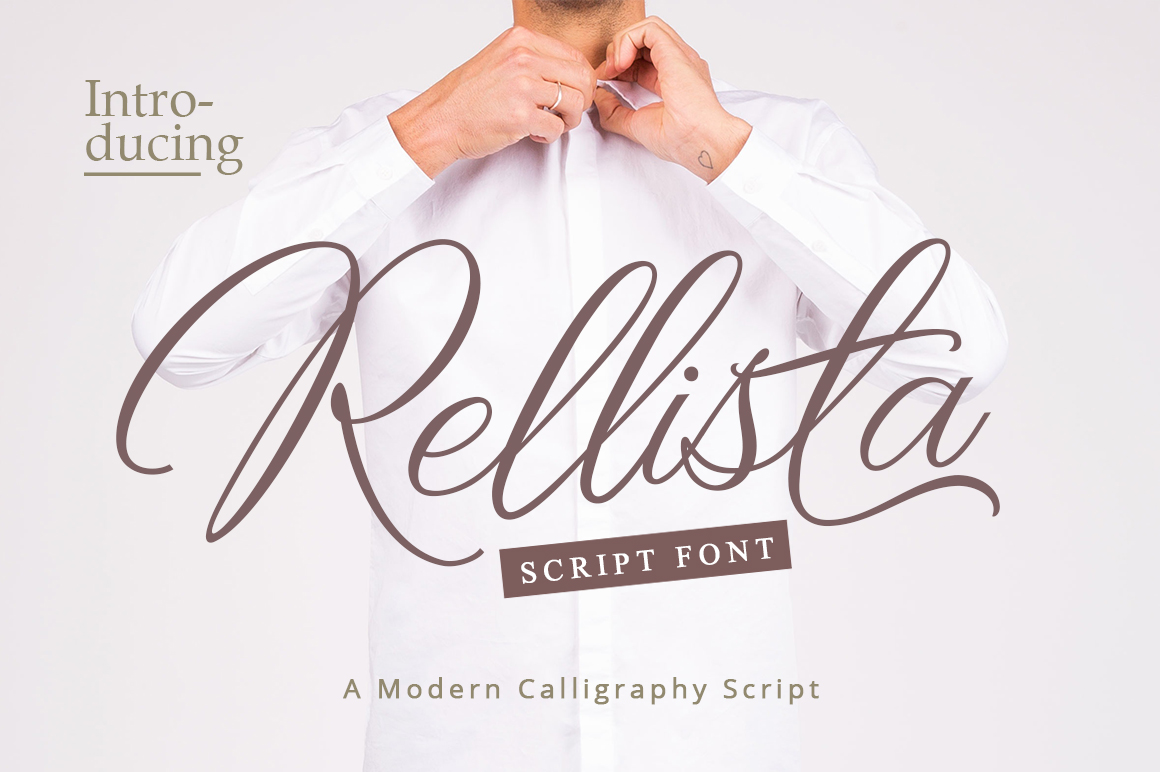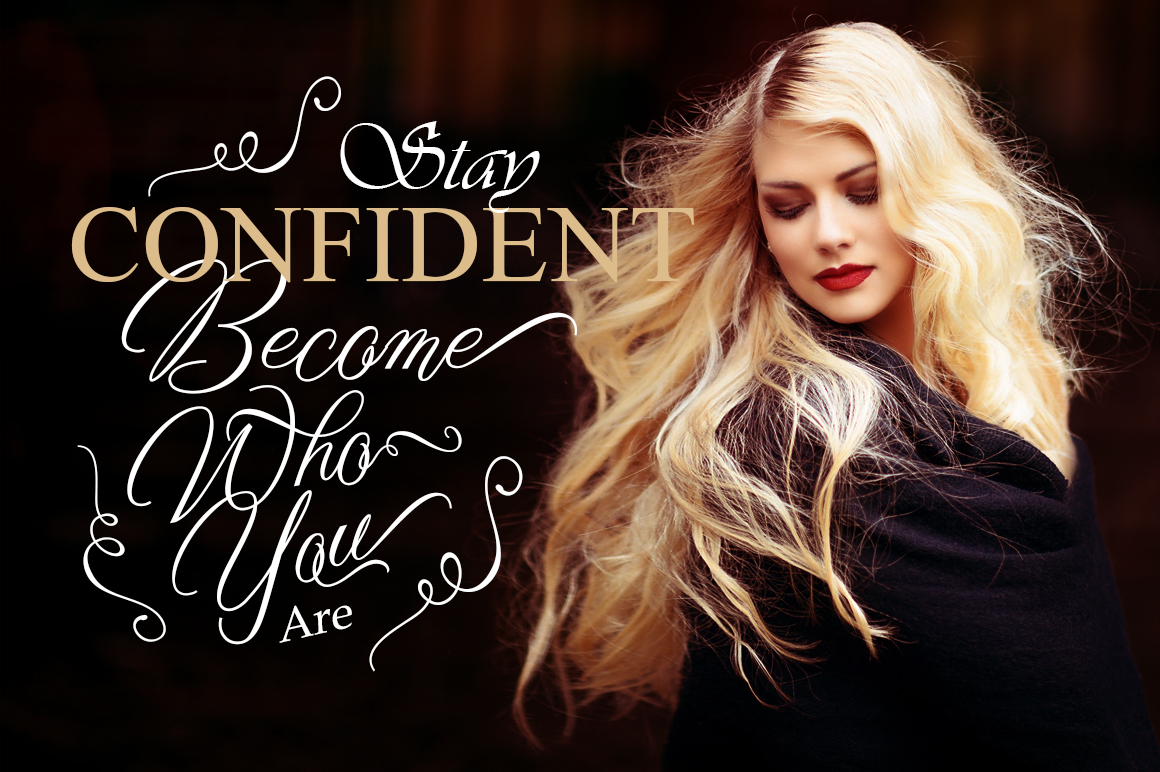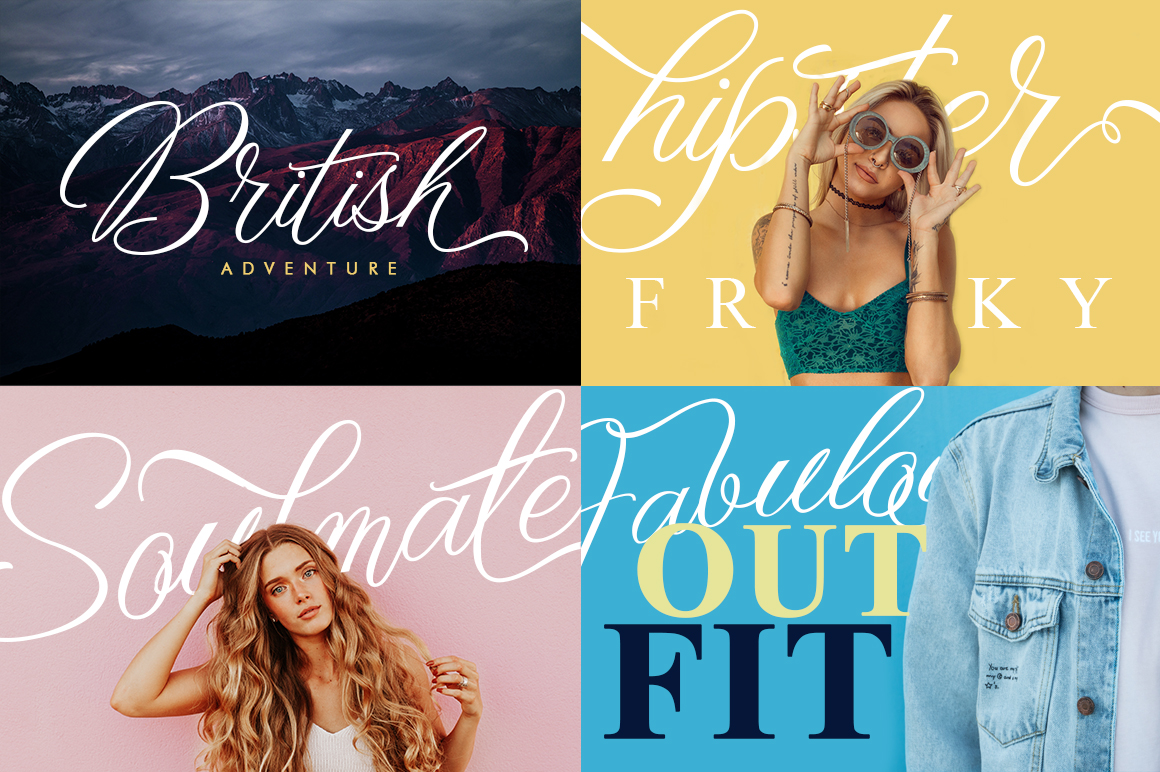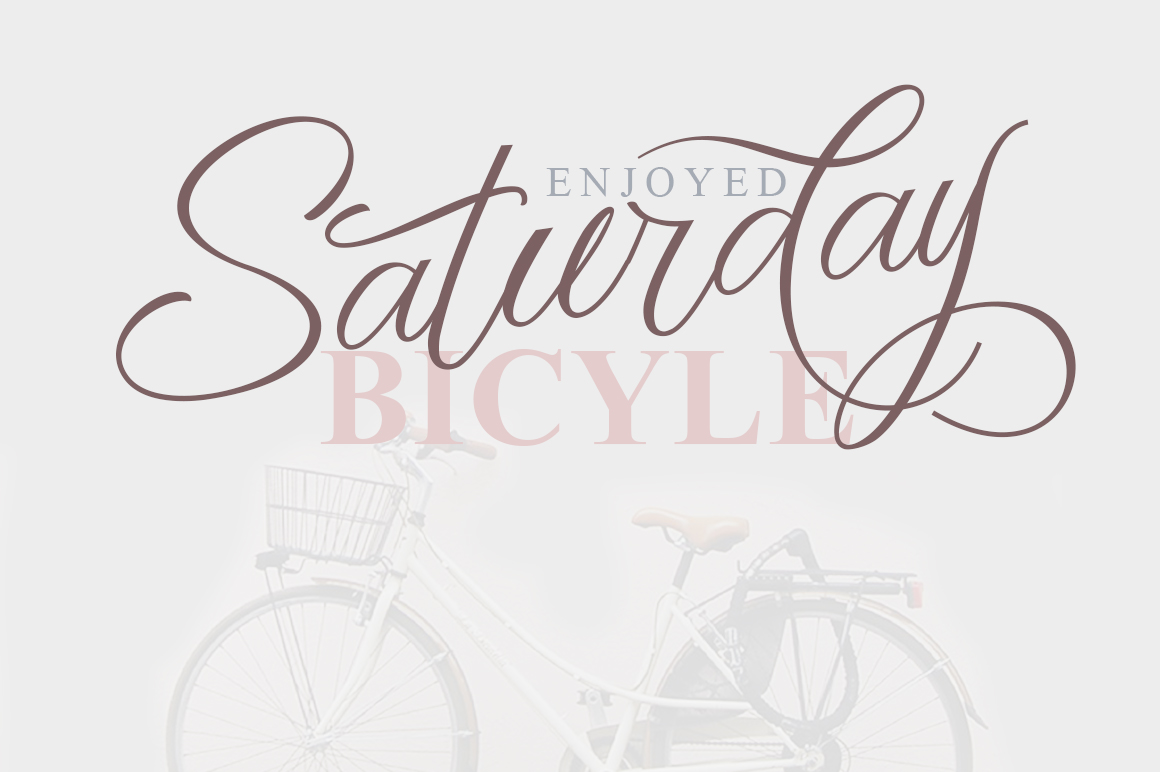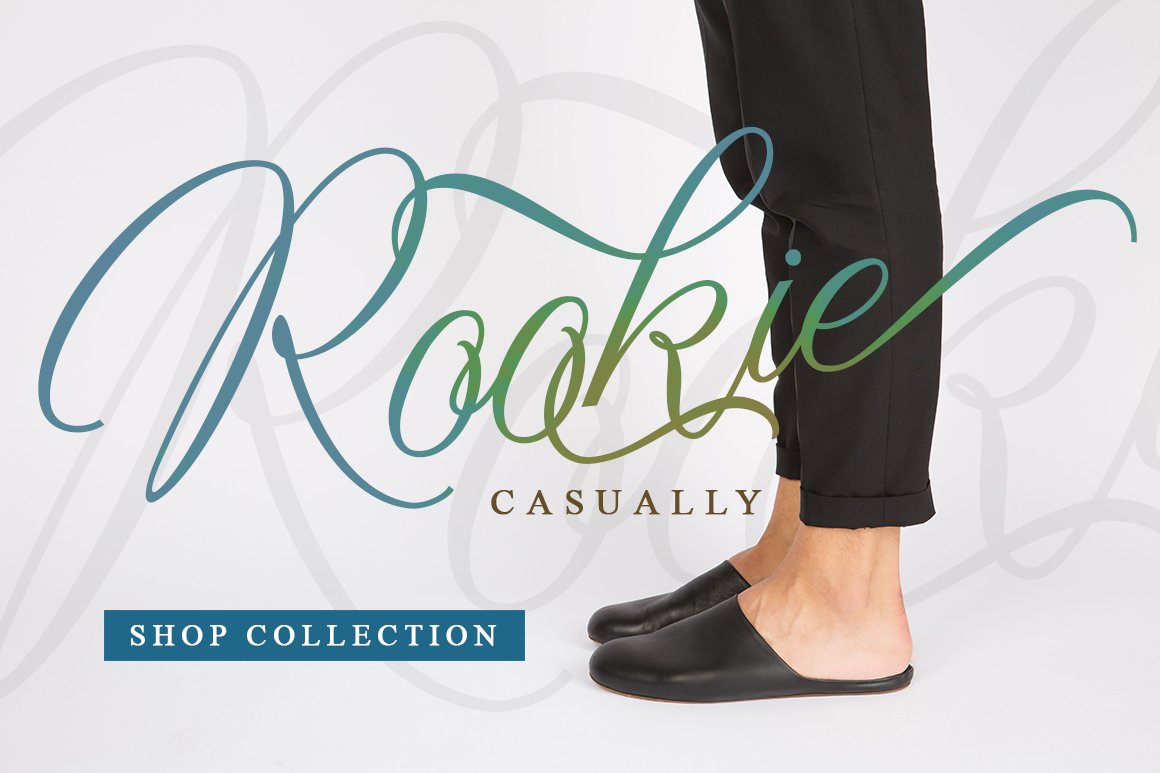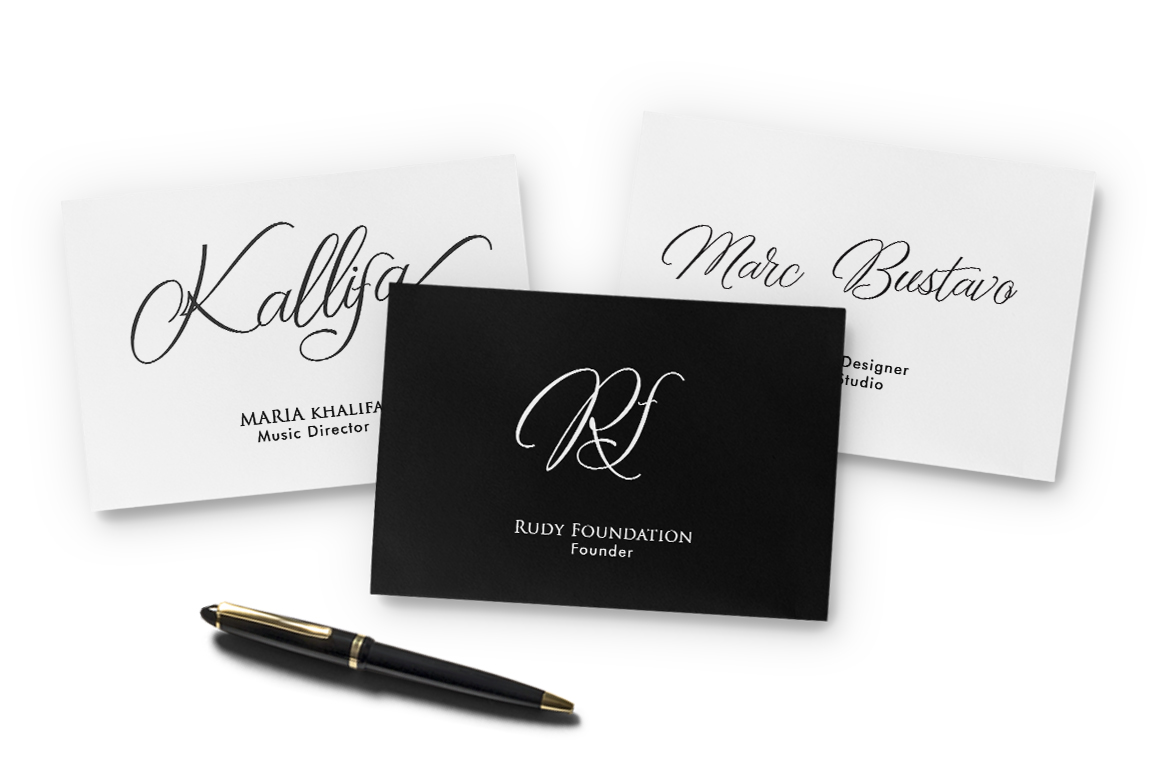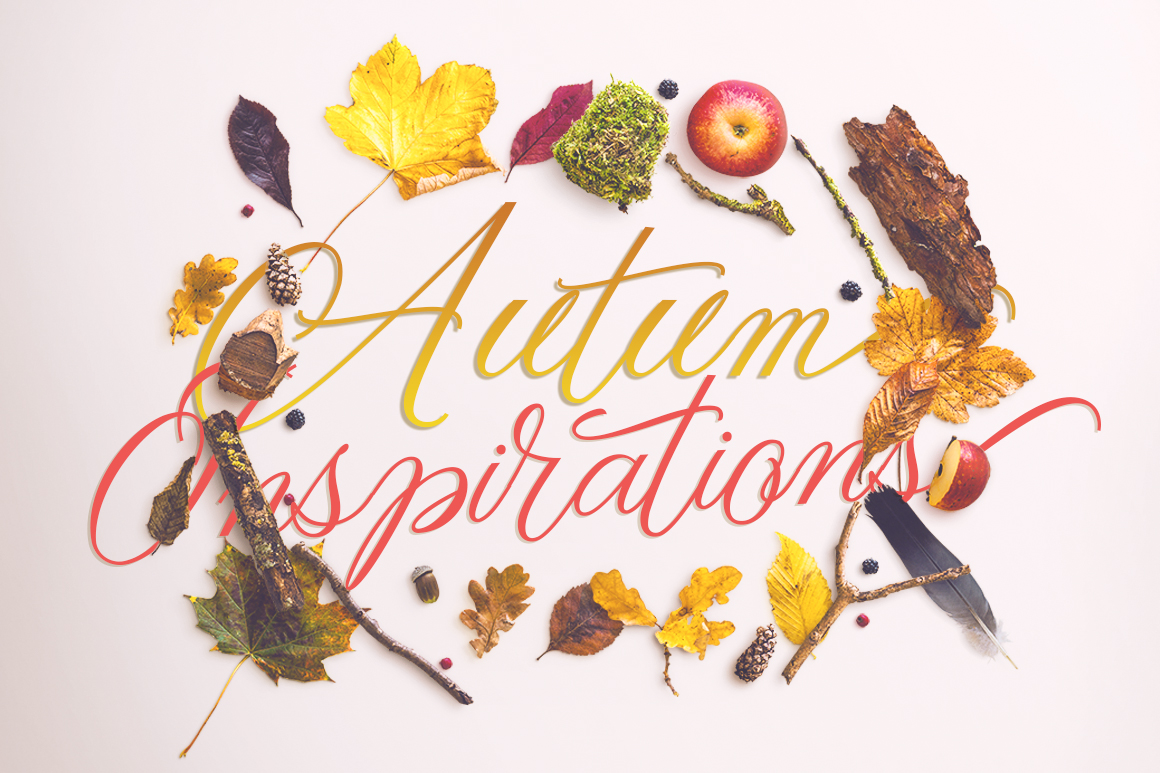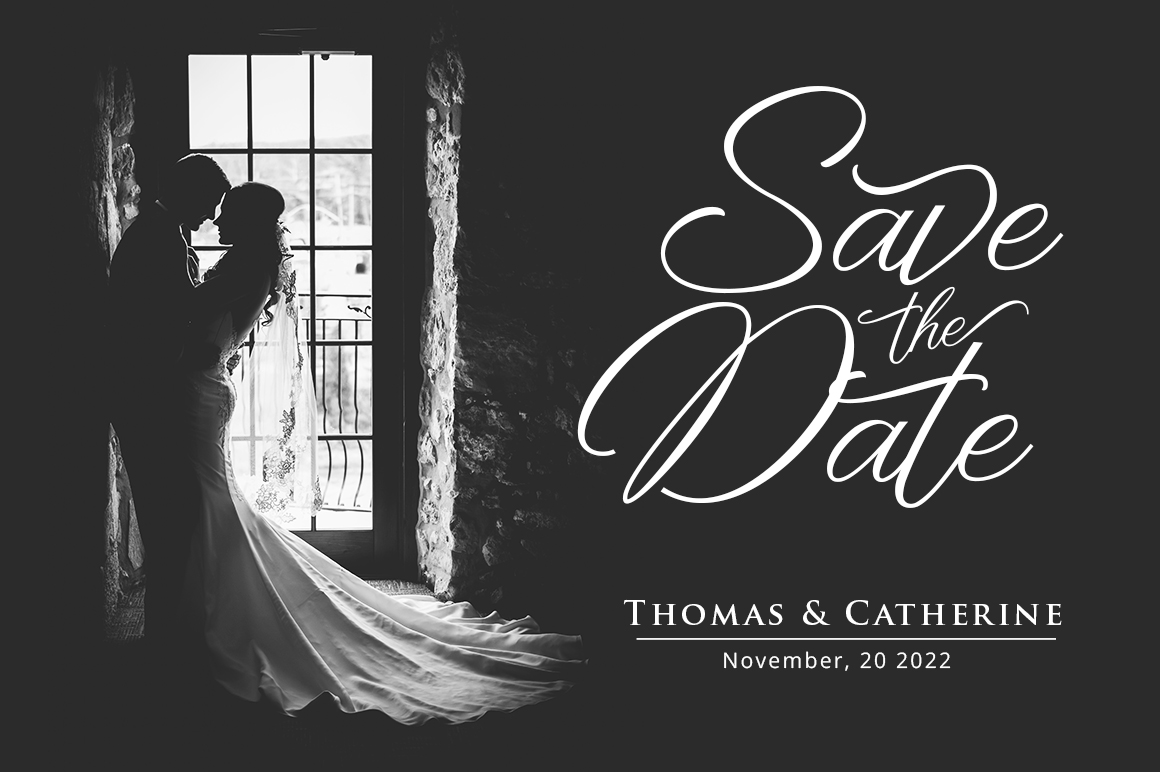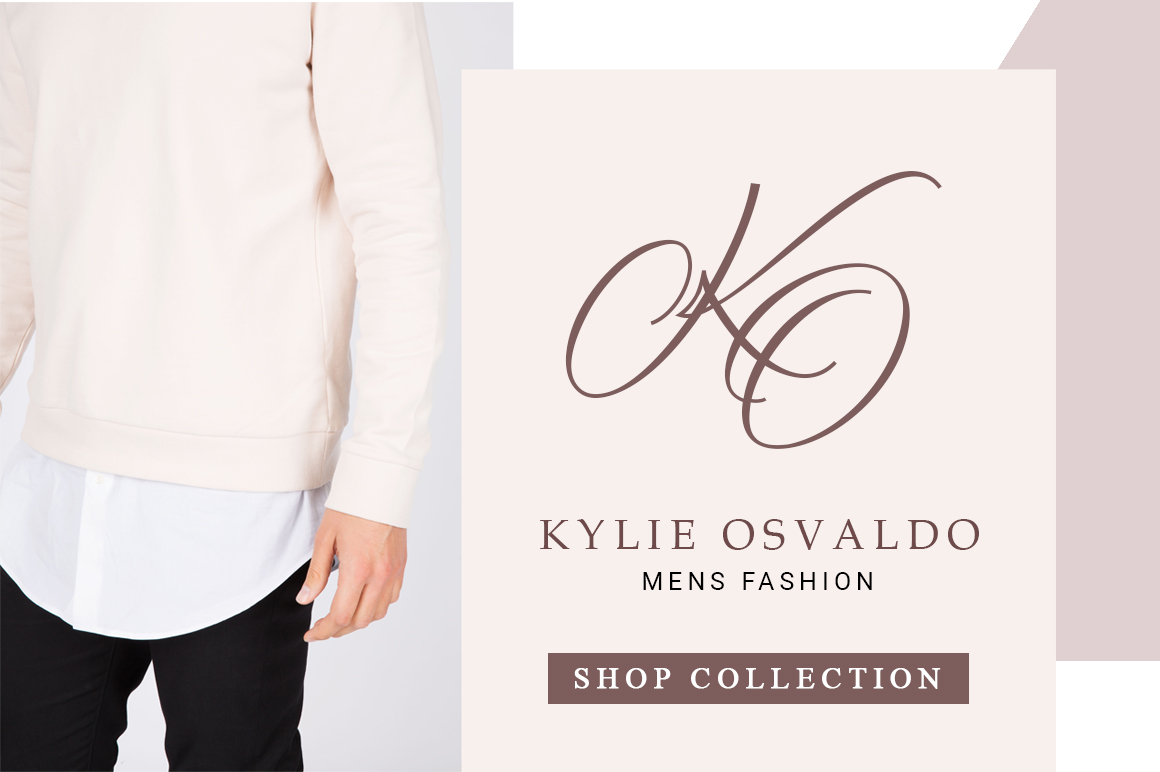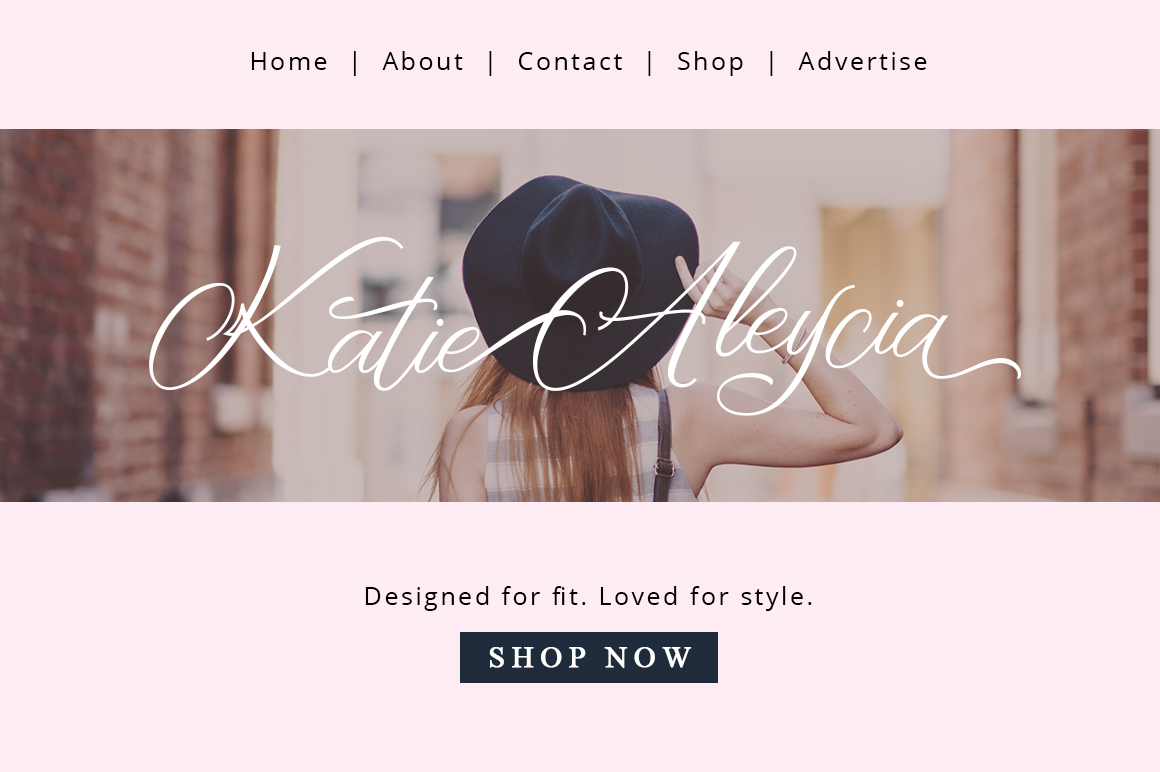
Rellista Script
About Rellista Script Font
Rellista is a stunning, elegant & catchy script font. It’s fresh and modern and will make each of your designs stand out. Add this lovely freebie to your creations and take your designs to the next level!